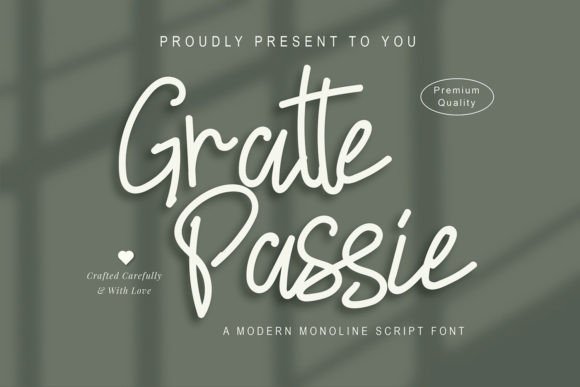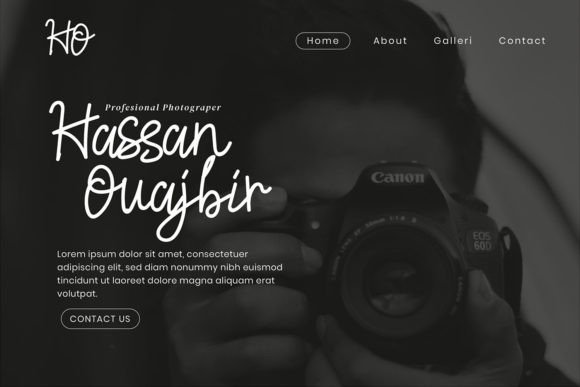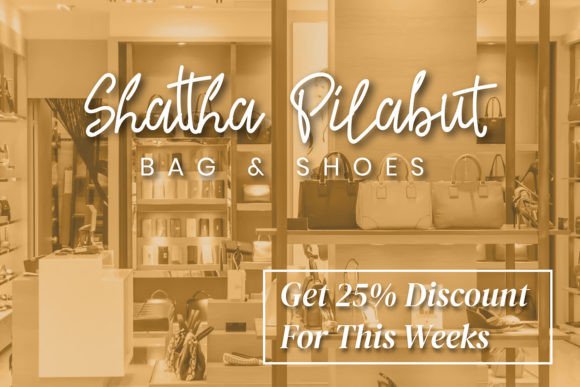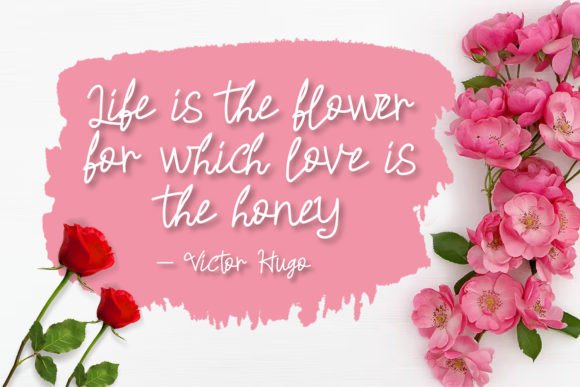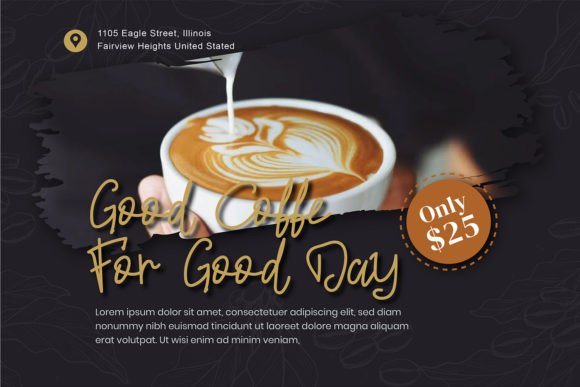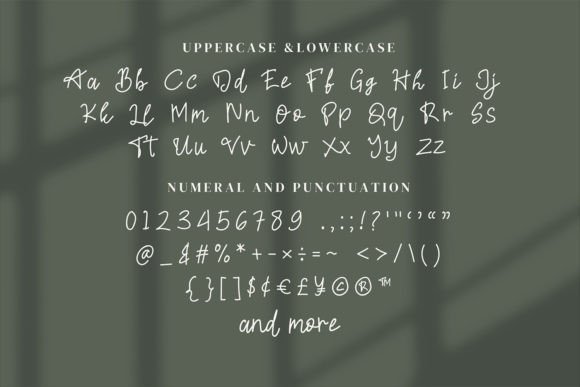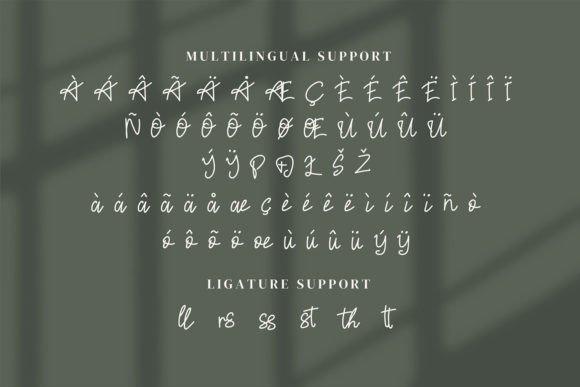
Gratte Passie Font
About Gratte Passie Font
Gratte Passie is a delightful and delicate script font designed to emanate elegance and class. It is meticulously crafted to provide a beautiful and refreshing aesthetic for those seeking a touch of sophistication in their designs. This font is tailored to elevate and breathe new life into your creative projects.
The script style of Gratte Passie brings forth a sense of delicacy and grace. Each letter is carefully designed to contribute to an overall aesthetic that is both visually pleasing and refined. The font’s elegance makes it a suitable choice for a variety of design applications, enhancing the sophistication of your projects.
Whether you are working on invitations, branding, or any design that calls for a beautiful and refreshing appearance, Gratte Passie proves to be a versatile and charming companion. Its delicate nature adds a personal and human touch, creating a connection between the design and its audience.
Incorporate Gratte Passie into your designs to experience the transformative impact it brings. Let its lovely and delicate script style be the defining feature that adds a touch of elegance to your creative endeavors. Gratte Passie is more than just a font; it’s a creative tool crafted to infuse your designs with a beautiful and refreshing look.